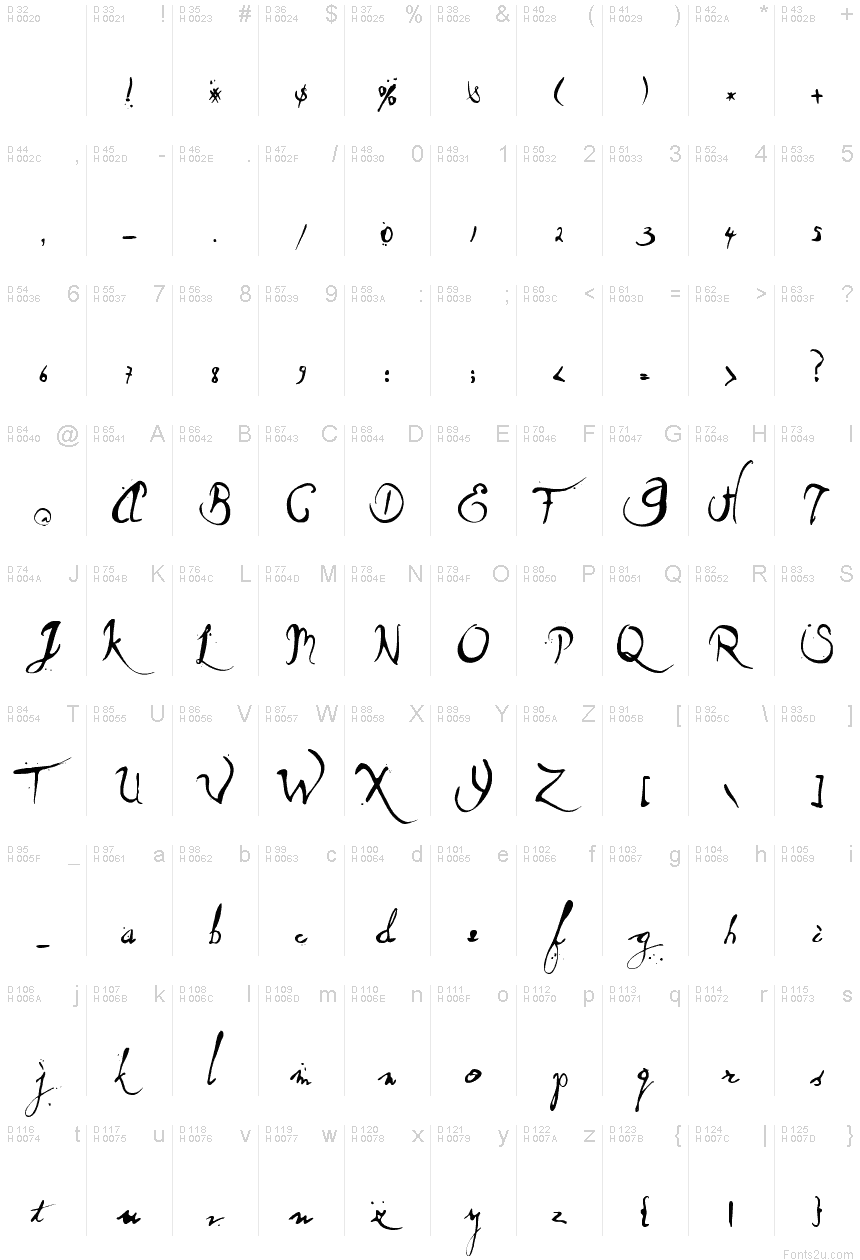
Wet Dream, designed by David Kerkhoff, is a free handwritten brush script with the speed and flourish of an oversized signature. Sharp changes in stroke width, steep loops, and long crossing sweeps give the letters an impulsive, inked look.
Fashion and music designers will find it suited to album covers, event posters, and clothing graphics with an expressive personal edge. They share a need for lettering that acts like a hand-drawn mark rather than neutral text.